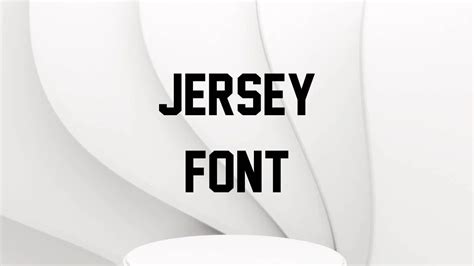
IBaseball Jersey Font: Free Download Guide
iBaseball Jersey Font Download: A Complete Guide
Hey guys! Ever wondered what font your favorite baseball team uses on their jerseys? Or maybe you’re designing your own team’s gear and want that authentic, sporty look? Finding the perfect iBaseball jersey font can make all the difference. Let’s dive into the world of baseball jersey fonts, where to find them, and how to use them for your projects.
Why Choosing the Right Baseball Jersey Font Matters
Baseball jersey fonts are more than just letters and numbers; they’re a crucial part of a team’s identity. Think about the iconic New York Yankees font or the classic look of the Boston Red Sox jerseys. These fonts evoke feelings of tradition, strength, and team spirit. The right font can instantly make your design look professional and authentic, whether you’re creating jerseys for a little league team, designing a logo, or even working on a graphic design project.
Choosing the wrong font, on the other hand, can make your design look amateurish and out of place. Imagine using a whimsical, curly font on a baseball jersey – it just wouldn’t feel right, would it? The font needs to be legible, bold, and reflect the sport’s energetic and competitive nature. That’s why understanding the nuances of baseball jersey fonts is so important for designers and sports enthusiasts alike.
When selecting a baseball jersey font , consider factors like readability, impact, and overall style. A font that looks great on a computer screen might not translate well to a physical jersey, especially when embroidered or printed. Also, think about the team’s personality and brand. Are they a classic, traditional team, or a modern, edgy one? The font should align with their identity and values. Many professional and amateur teams use a variety of fonts that are custom designed, but based on a common set of font designs. Therefore, finding one that is free or cheap may be difficult. However, several websites are dedicated to finding a look that suits your needs.
Ultimately, the right baseball jersey font can elevate your design and create a lasting impression. It’s about more than just aesthetics; it’s about capturing the essence of the sport and the team’s unique spirit. So, take your time, explore different options, and choose a font that truly represents your vision.
When it comes to baseball jersey fonts , there are a few styles that consistently stand out. These fonts have a classic, sporty feel that’s perfect for jerseys, logos, and other sports-related designs. Understanding these popular types can help you narrow down your choices and find the perfect font for your project.
Block Fonts
Block fonts are a staple in the world of baseball jersey fonts . They’re characterized by their clean, bold lines and rectangular shapes. This style of font is highly legible and creates a sense of strength and stability. Block fonts are often used for team names and player numbers because they’re easy to read from a distance. Some popular block fonts include Collegiate, Impact, and Arial Black. These fonts are versatile and can be used for a wide range of sports-related designs.
The beauty of block fonts lies in their simplicity. They’re straightforward and don’t have any unnecessary embellishments, making them ideal for conveying a sense of professionalism and tradition. Many classic baseball teams use block fonts for their jerseys, creating a timeless and iconic look. When choosing a block font, consider the thickness of the lines and the spacing between letters to ensure maximum readability. You can also experiment with different variations, such as rounded or slanted block fonts, to add a unique touch to your design.
Script Fonts
Script fonts add a touch of elegance and flair to baseball jersey fonts . They mimic handwriting and have flowing, cursive-like strokes. Script fonts are often used for team logos and nicknames, adding a personal and stylish element to the design. Some popular script fonts include Brush Script, Script MT Bold, and Pacifico. These fonts can be a great way to showcase a team’s personality and create a memorable brand image. However, using a script font may not be ideal for numbers on the back of a jersey, as it may be difficult to read.
When using script fonts, it’s important to strike a balance between style and readability. Choose a font that’s easy to decipher, especially when viewed from a distance. Also, consider the overall tone of the design. A formal script font might be suitable for a high-end brand, while a more playful script font might be better suited for a youth team. Experiment with different weights and sizes to find the perfect balance. Script fonts can be a great way to add a unique and eye-catching element to your baseball jersey font design.
Slab Serif Fonts
Slab serif fonts are another popular choice for baseball jersey fonts . They’re characterized by their thick, block-like serifs (the small lines at the end of the strokes). Slab serif fonts have a vintage, industrial feel that’s perfect for creating a retro-inspired design. They’re often used for team names and logos, adding a touch of character and nostalgia. Some popular slab serif fonts include Rockwell, Courier New, and Museo Slab. These fonts can be a great way to pay homage to the history of baseball and create a unique and memorable design.
Finding the perfect iBaseball jersey font can be a fun and rewarding process. By understanding the different types of fonts available, knowing where to find them, and following these tips for using them effectively, you can create stunning designs that capture the spirit of the game. So, go ahead and experiment, get creative, and design a baseball jersey font that’s a home run!